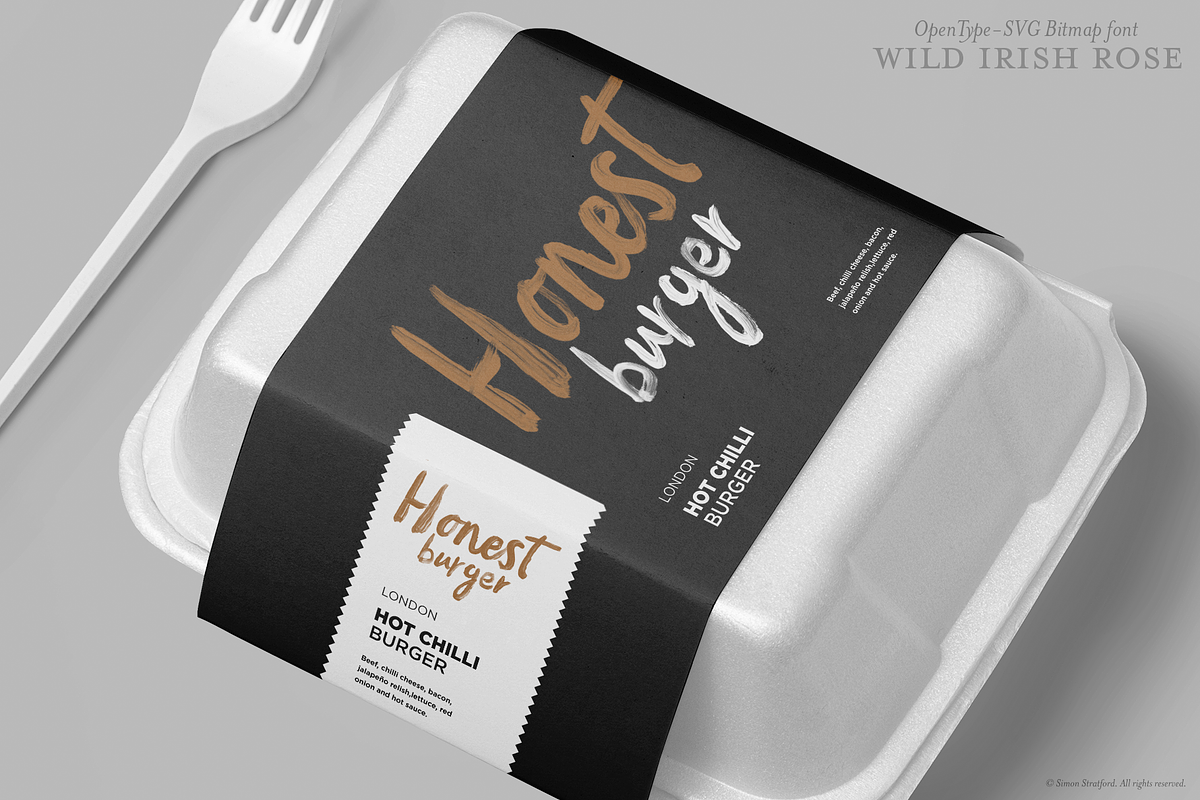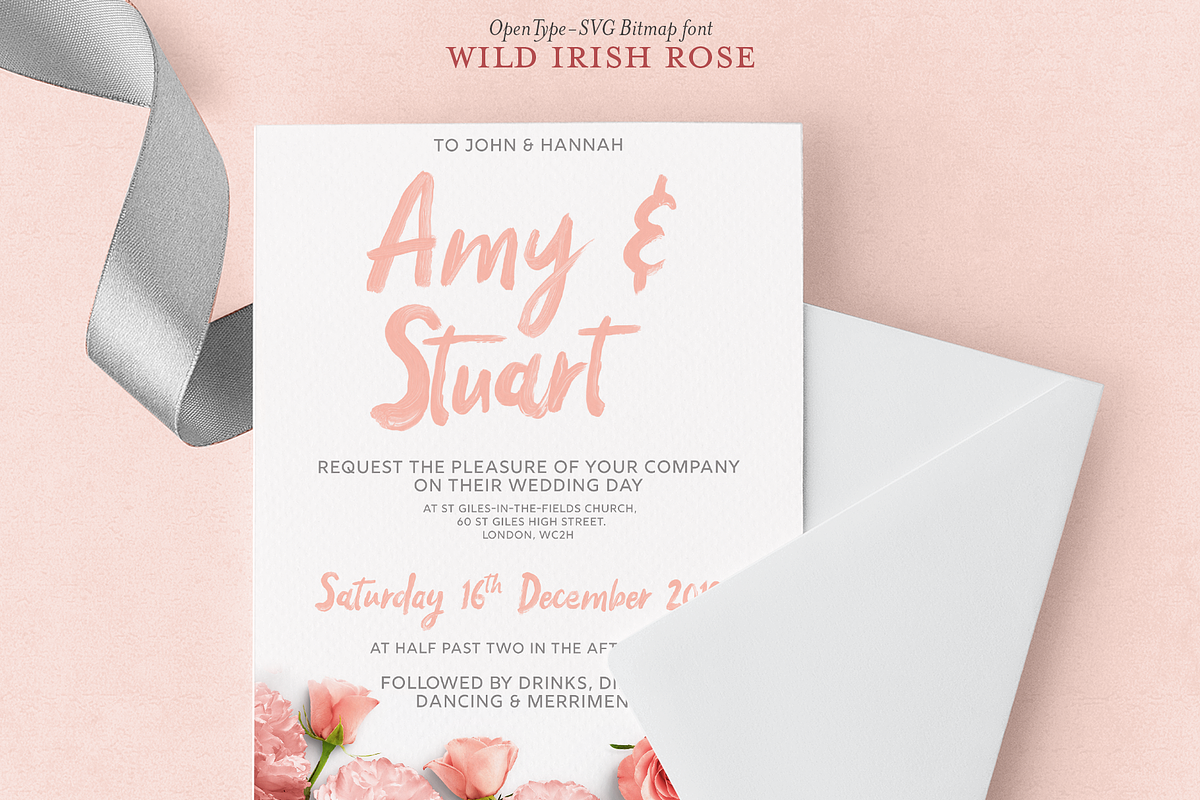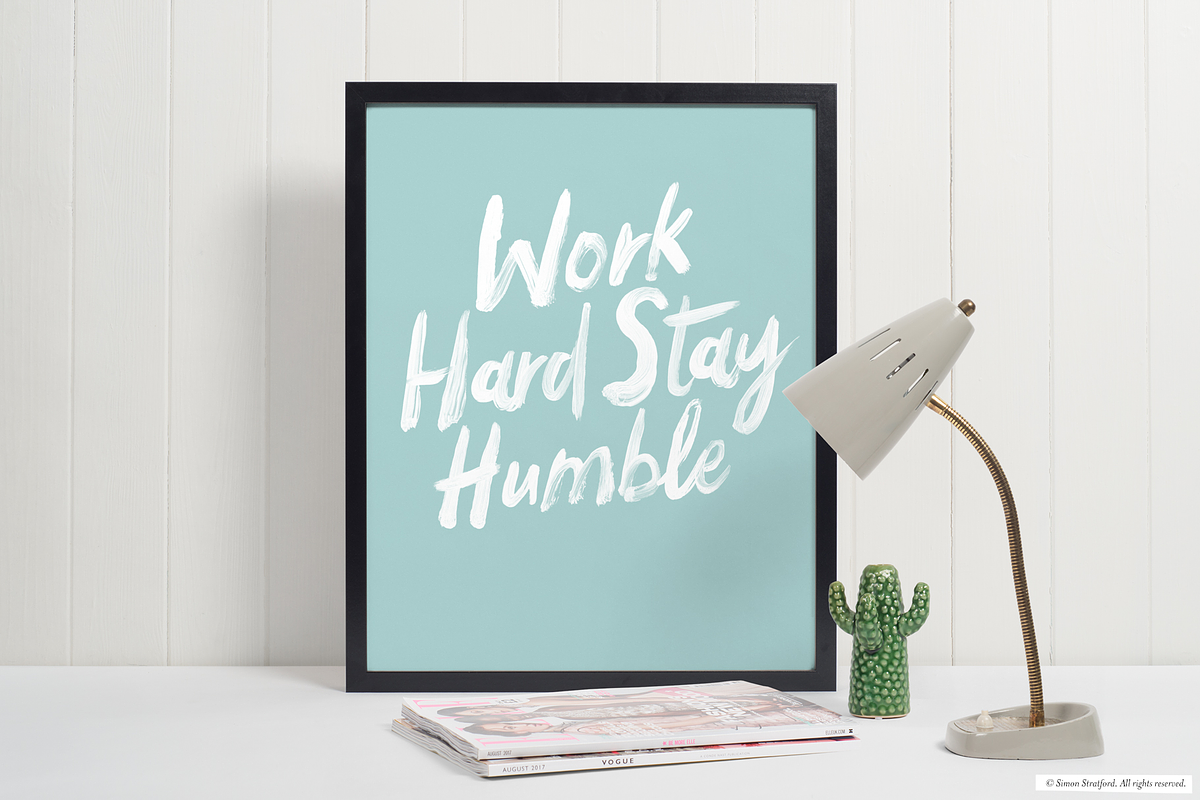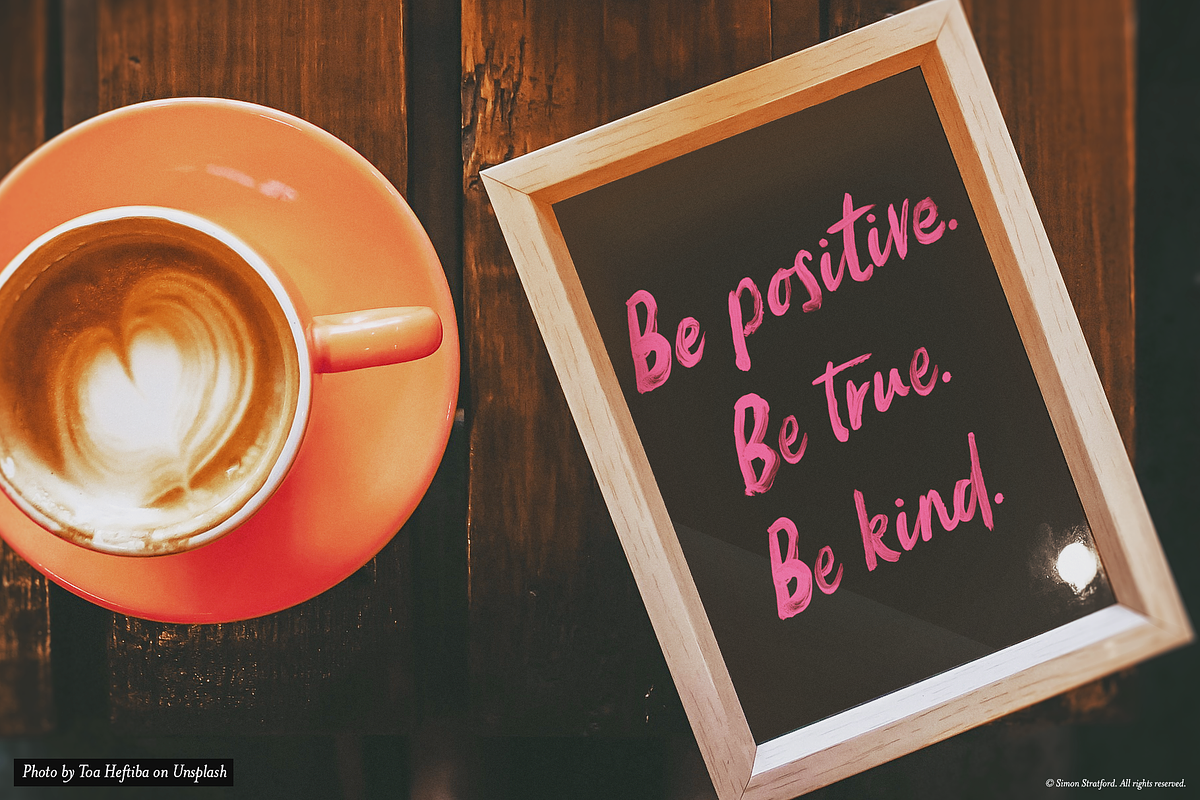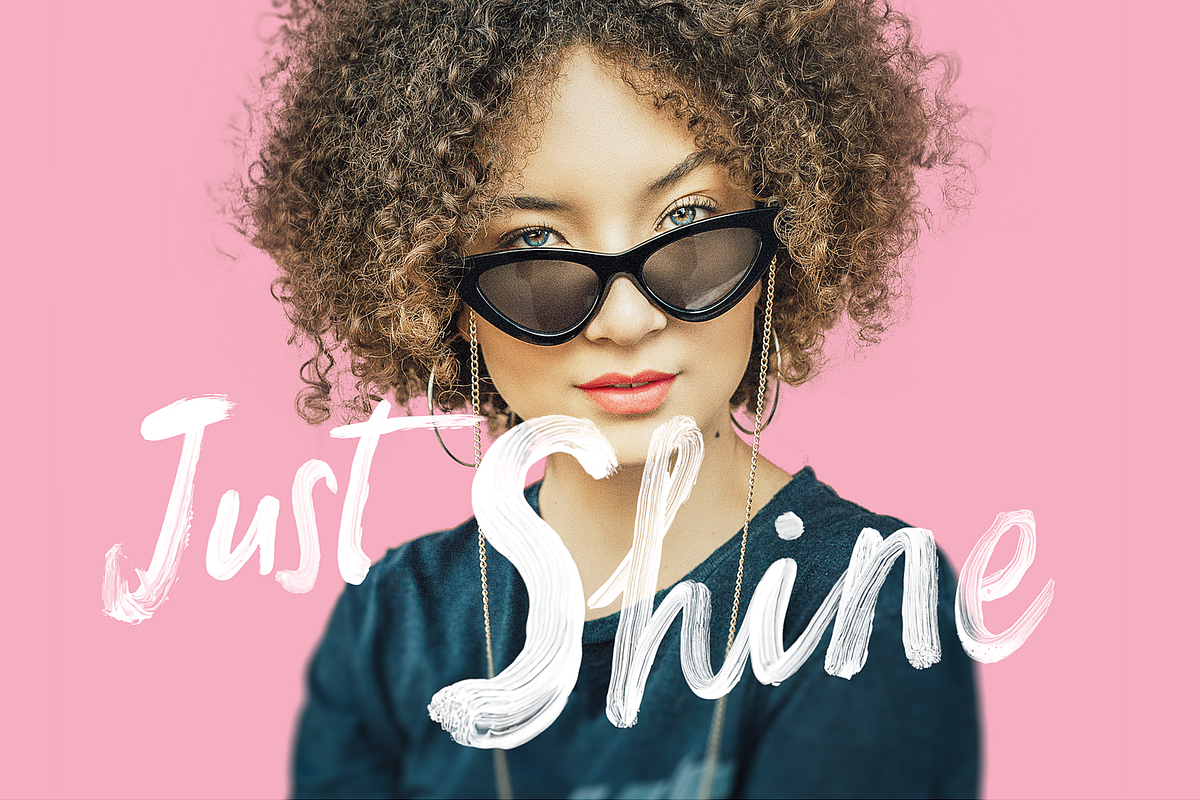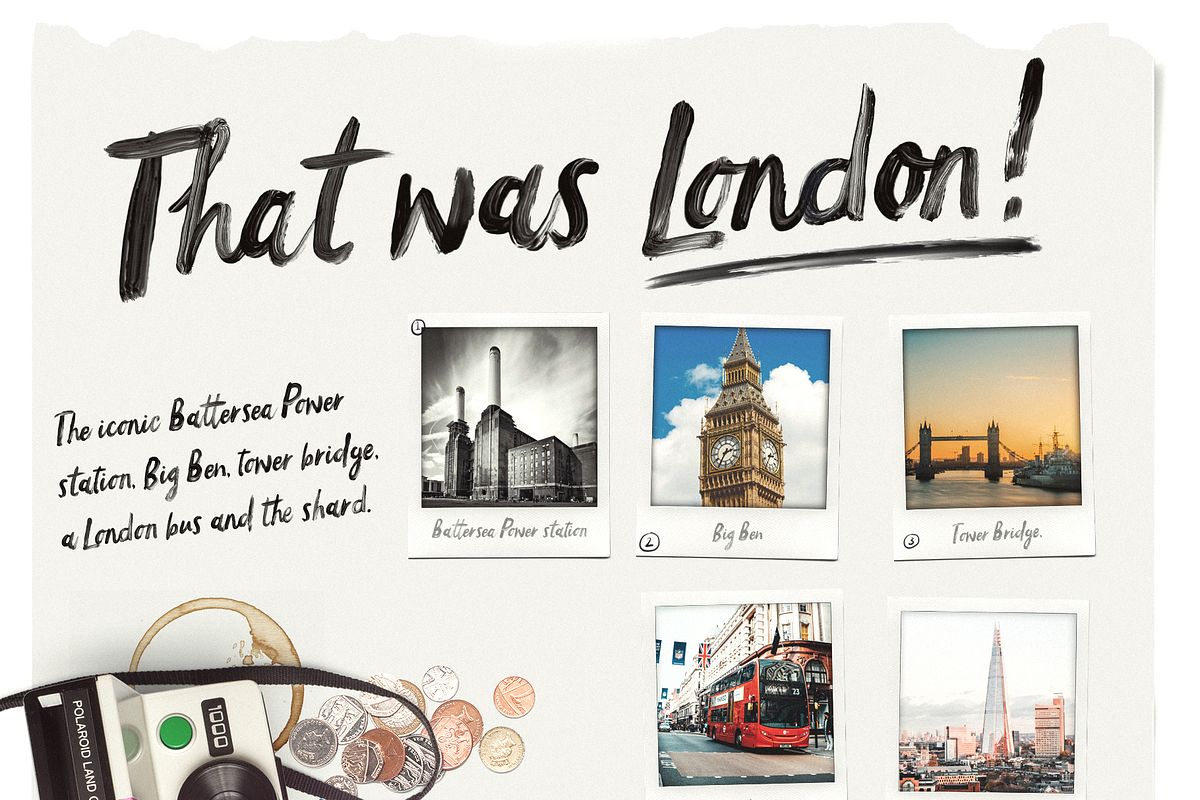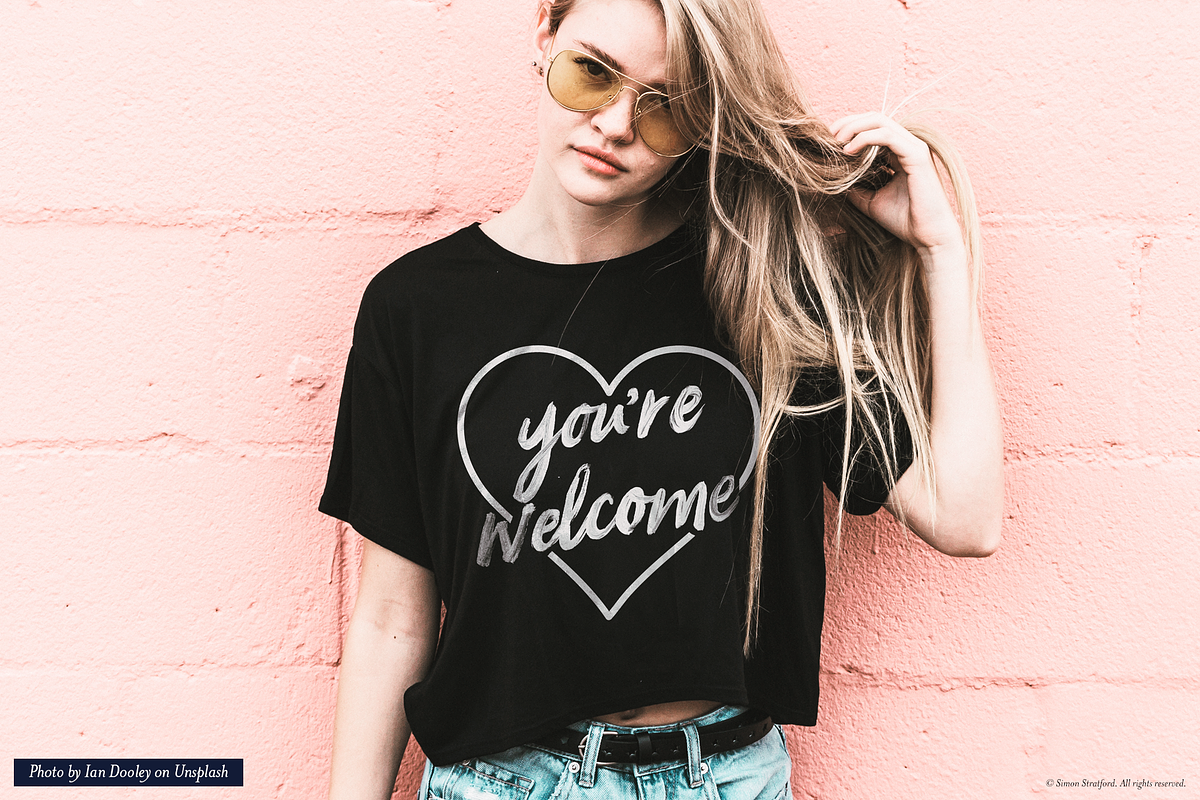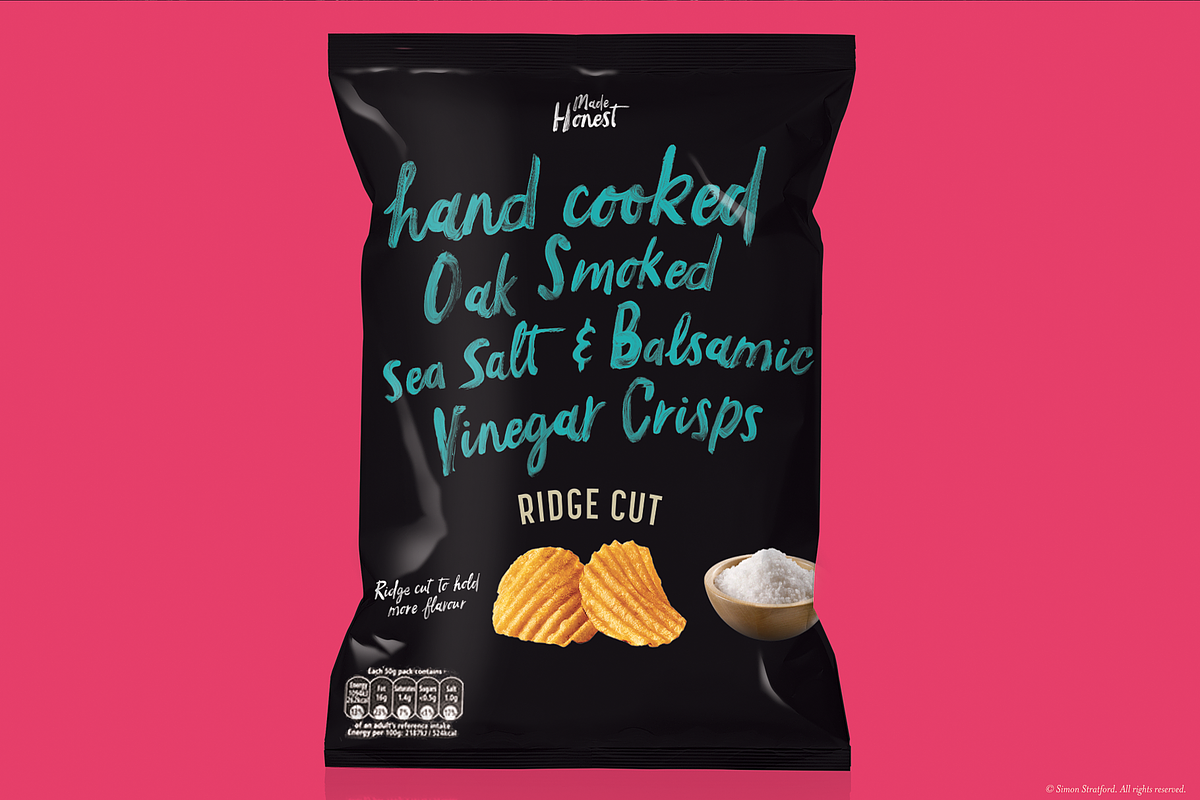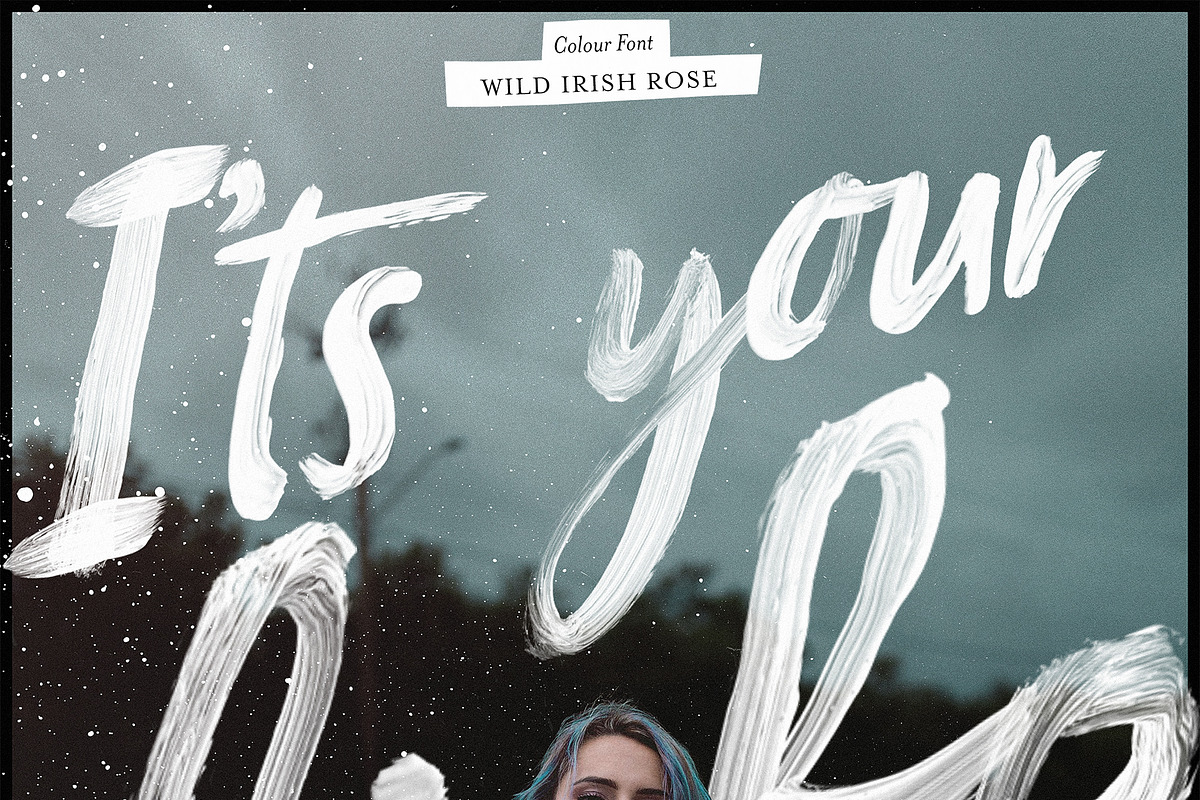
Script font Wild Irish Rose
Wild Irish Rose brush script, intentionally painted very quickly without overthinking too much.
By hand painting it quickly it retains its energy so that it looks fresh as a daisy—allowing you to create beautiful handmade brush lettering.
Every letter has been hand painted with acrylic paint one because I get a kick out of making a mess and two its when the magic happens.
If this font were a celebrity, it would be more Sienna Miller than Bette Midler—but they are both fabulous, darling!
It has an incredible level of detail for a typeface. You get all the lovely inconsistencies that a brush brings including paint blemishes and weird marks. You can't get that detail in a regular vector font. And this font is NOT a regular vector font, its real paint! If you are not into experimental hand-painted typefaces, this is not for you.
And because it's a full-colour font, and with the help of Photoshop, you can change the colour in a heartbeat. With the built-in transparency, it's perfect for overlaying over images in any colour—and looks fantastic.
Script font Alternatives
Each uppercase letter has at least 2 alternatives, and the lowercase has many more.
The Wild Irish Rose font is versatile enough for a broad range of uses. Its trendy modern look would be excellent for fashion and beauty, branding work, book covers, magazines, logos, social media, presentations, wedding invites and anything where you want that authentic handmade feel.